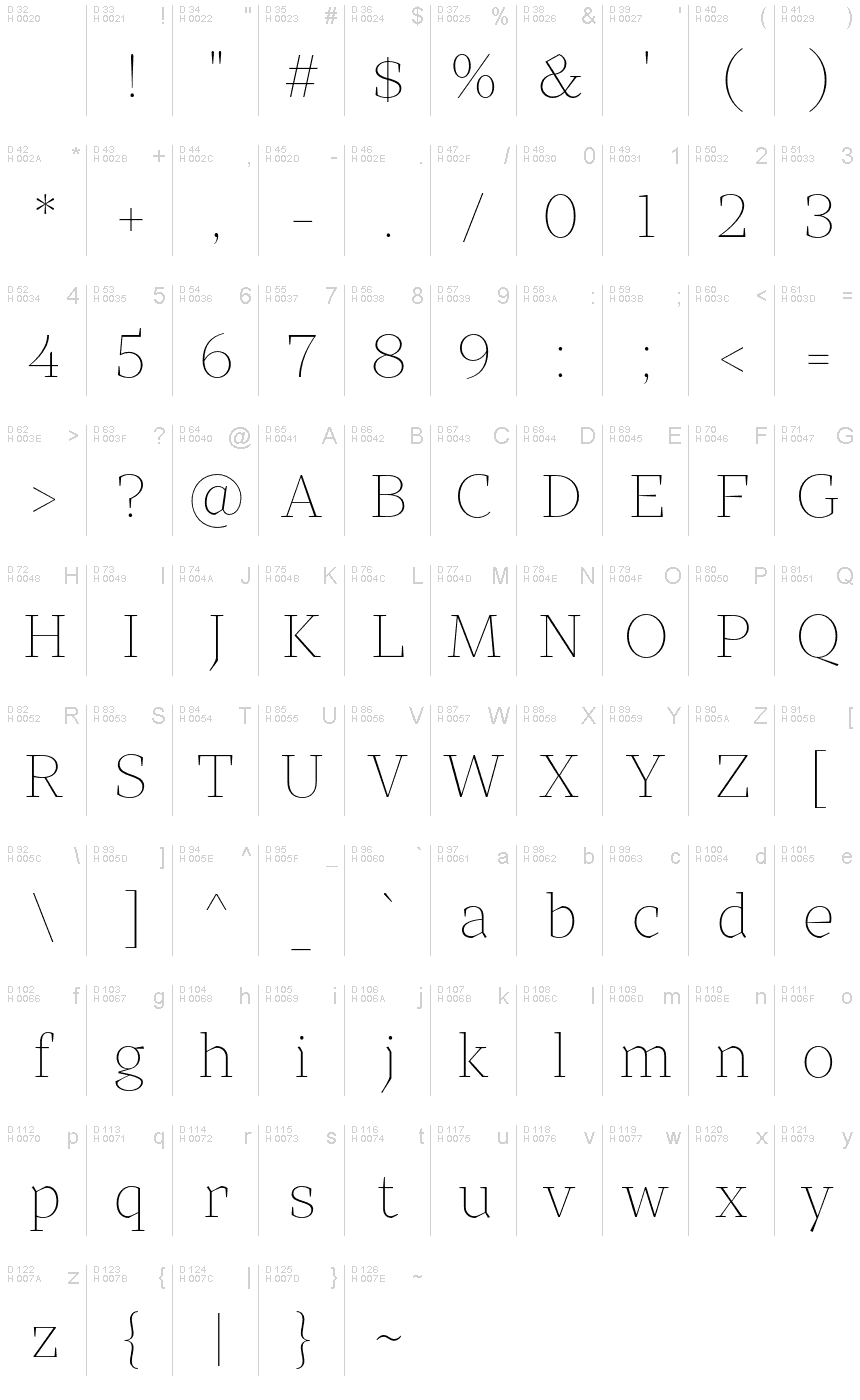
TT Bells Trial Thin
TT Bells Thin, designed by TypeType Foundry, is an elegant serif font with an extra-light weight. Its delicate curves and intricate details make it perfect for sophisticated projects that require a touch of refinement. Use TT Bells Thin to add a touch of class to wedding invitations, high-end product packaging, or luxury brand websites. Its thin lines and graceful letterforms create a subtle yet striking impression that will elevate any design project. With TT Bells Thin as your chosen font typeface, you'll be sure to impress even the most discerning audiences with your impeccable taste and style.